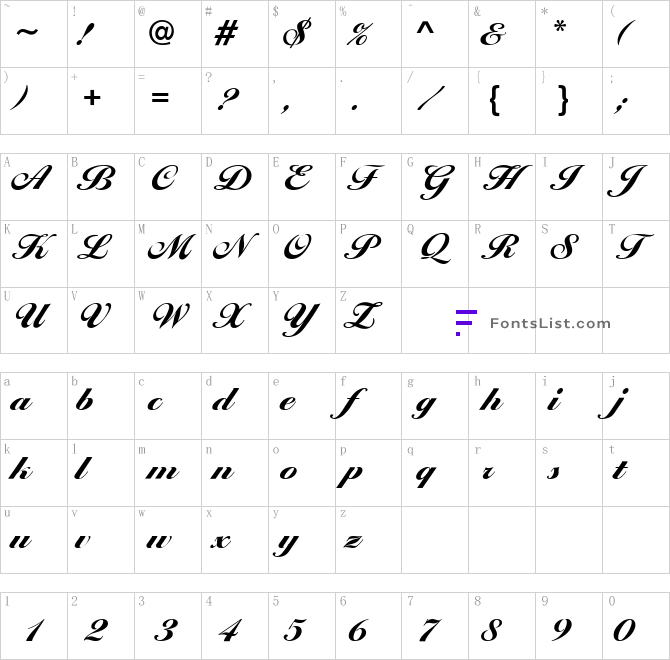
- Font Name:BallantinesScriptEF
BallantinesScriptEF-ExtraBold.ttf is a very beautiful artistic font, BallantinesScriptEF-ExtraBold.ttf is widely used in the design and printing of various books and pictures,BallantinesScriptEF-ExtraBold.ttf has a strong visual impact,BallantinesScriptEF-ExtraBold.ttf is a commonly used font in newspapers, magazines and books, and is used in posters, e-commerce Poster design, store design, logo design, font design and other fields.BallantinesScriptEF-ExtraBold.